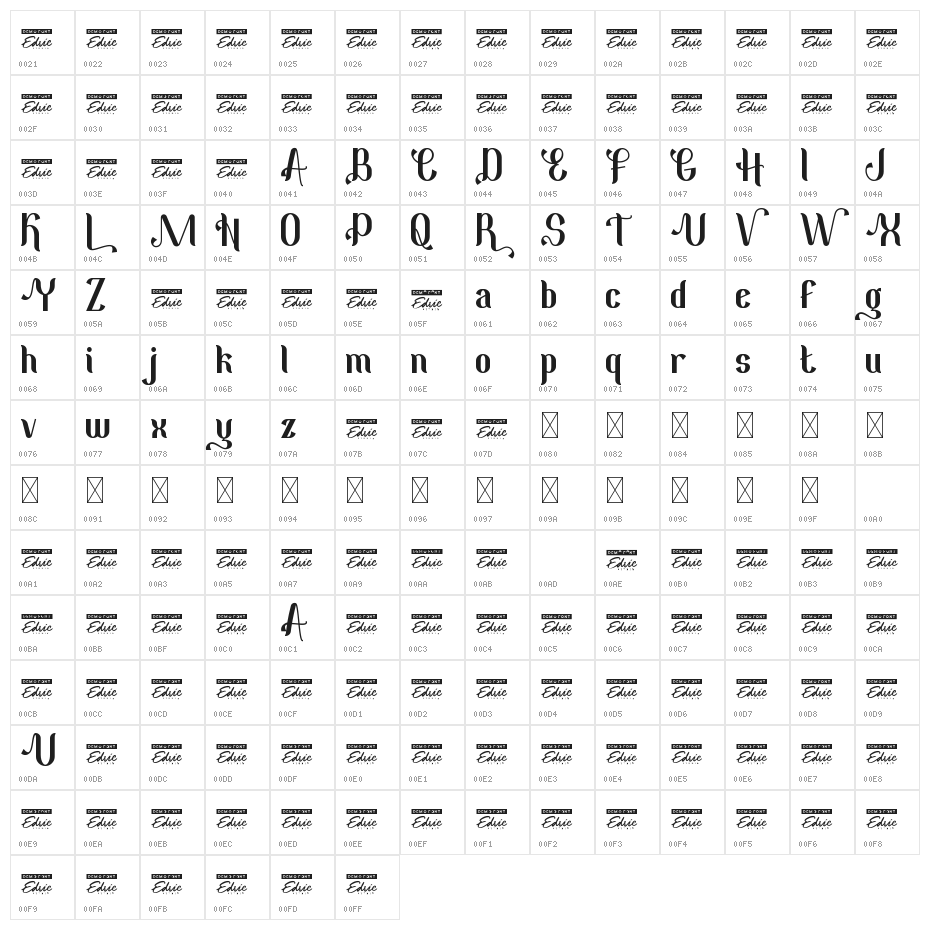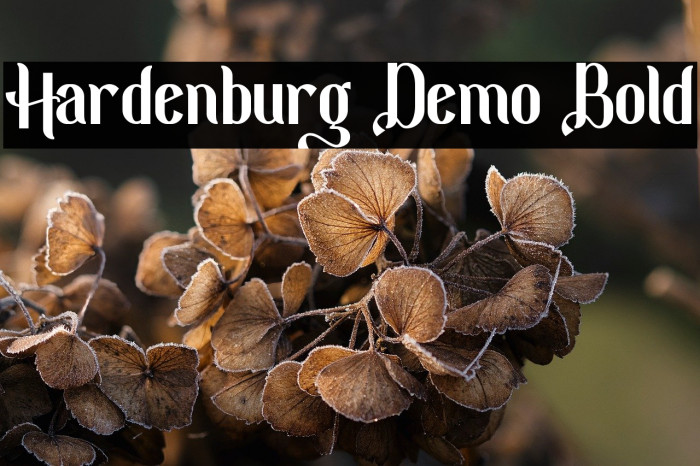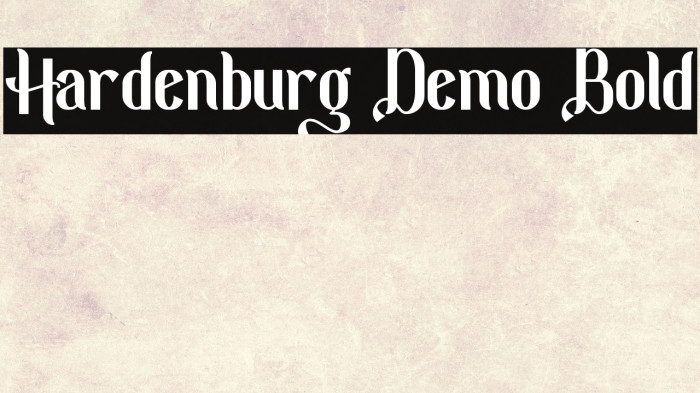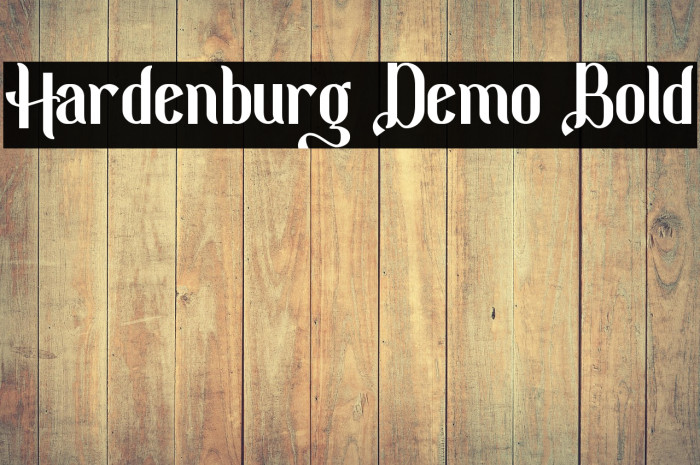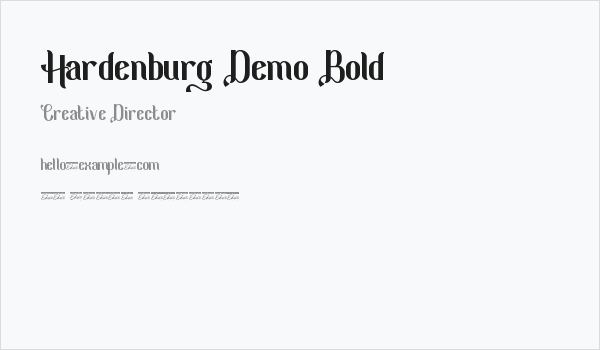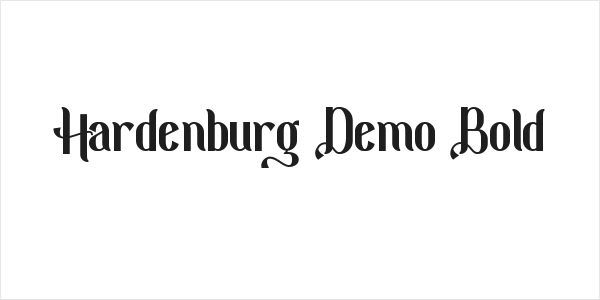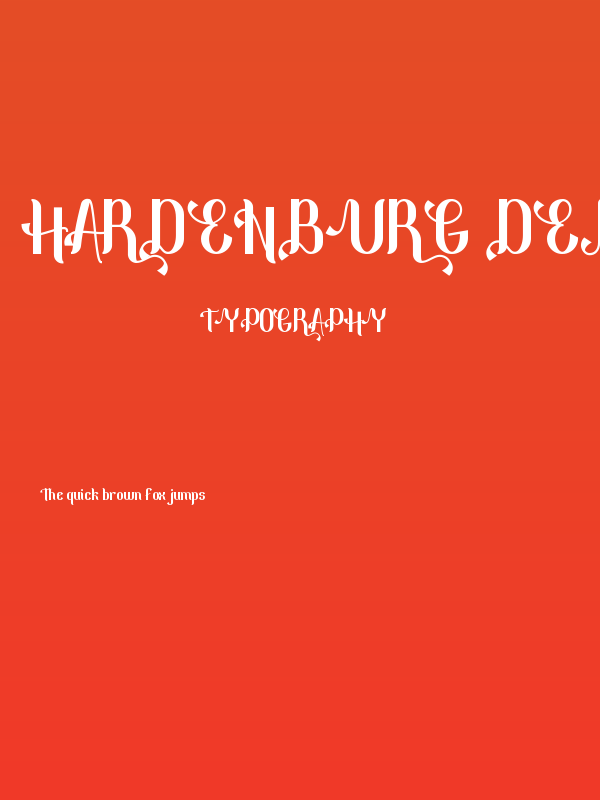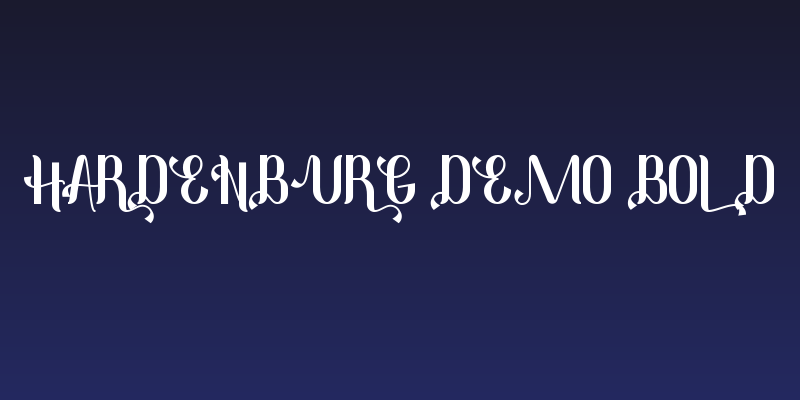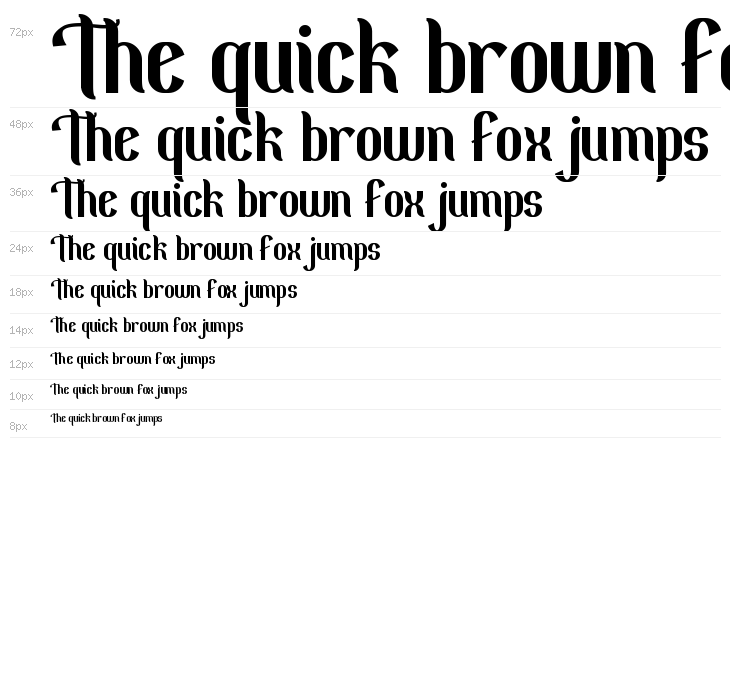
Hardenburg Demo Bold Font
Hardenburg Demo Bold Description
This font features a bold and decorative style with a unique blend of modern and vintage elements. The uppercase letters are characterized by their intricate curves and flourishes, giving them a dramatic and artistic appearance. The lowercase letters maintain a strong presence with thick strokes and subtle serifs, providing a harmonious balance between elegance and readability. The font's overall design is both striking and versatile, making it suitable for a variety of creative applications. The numerals and special characters are crafted with the same attention to detail, ensuring consistency throughout the typeface.